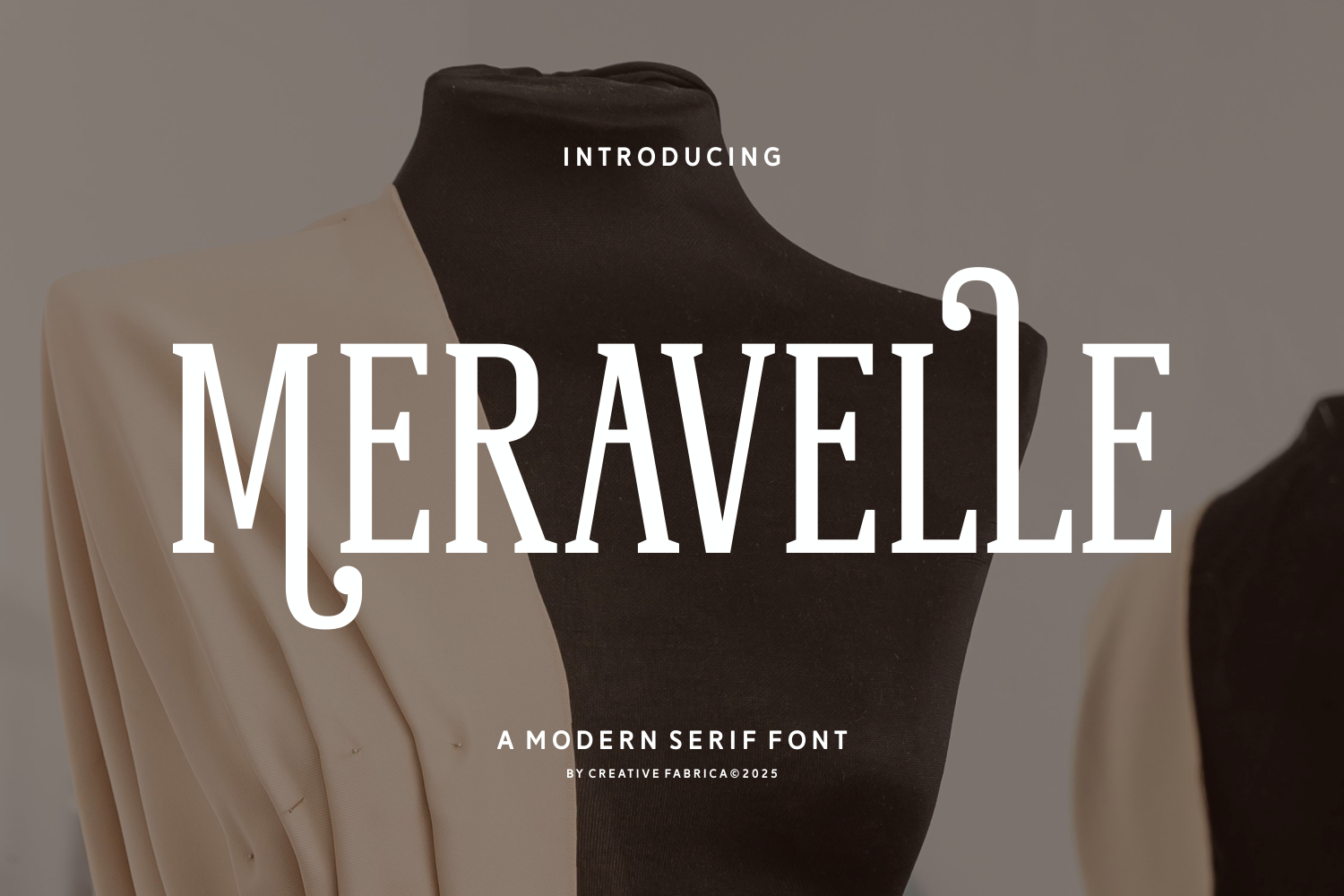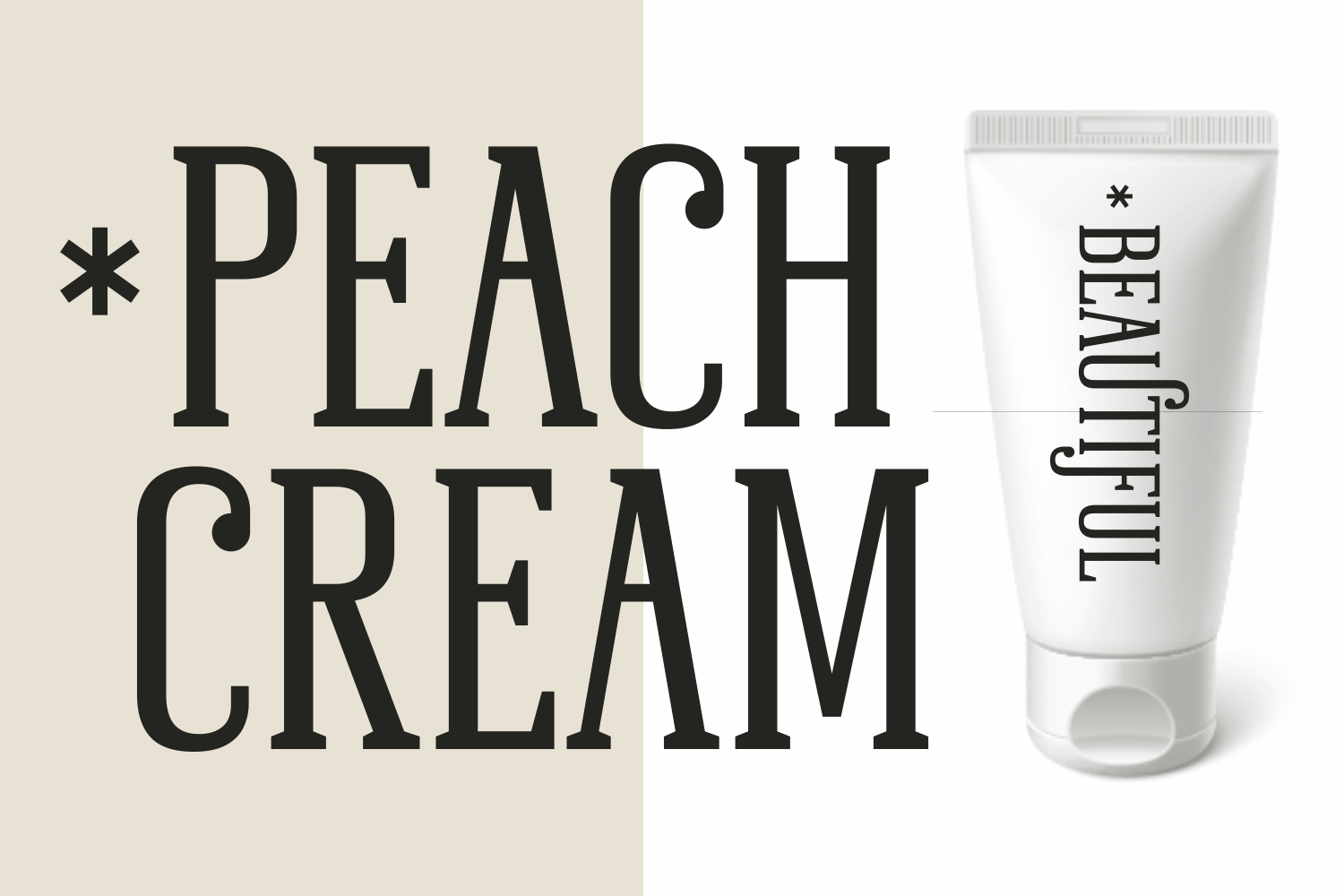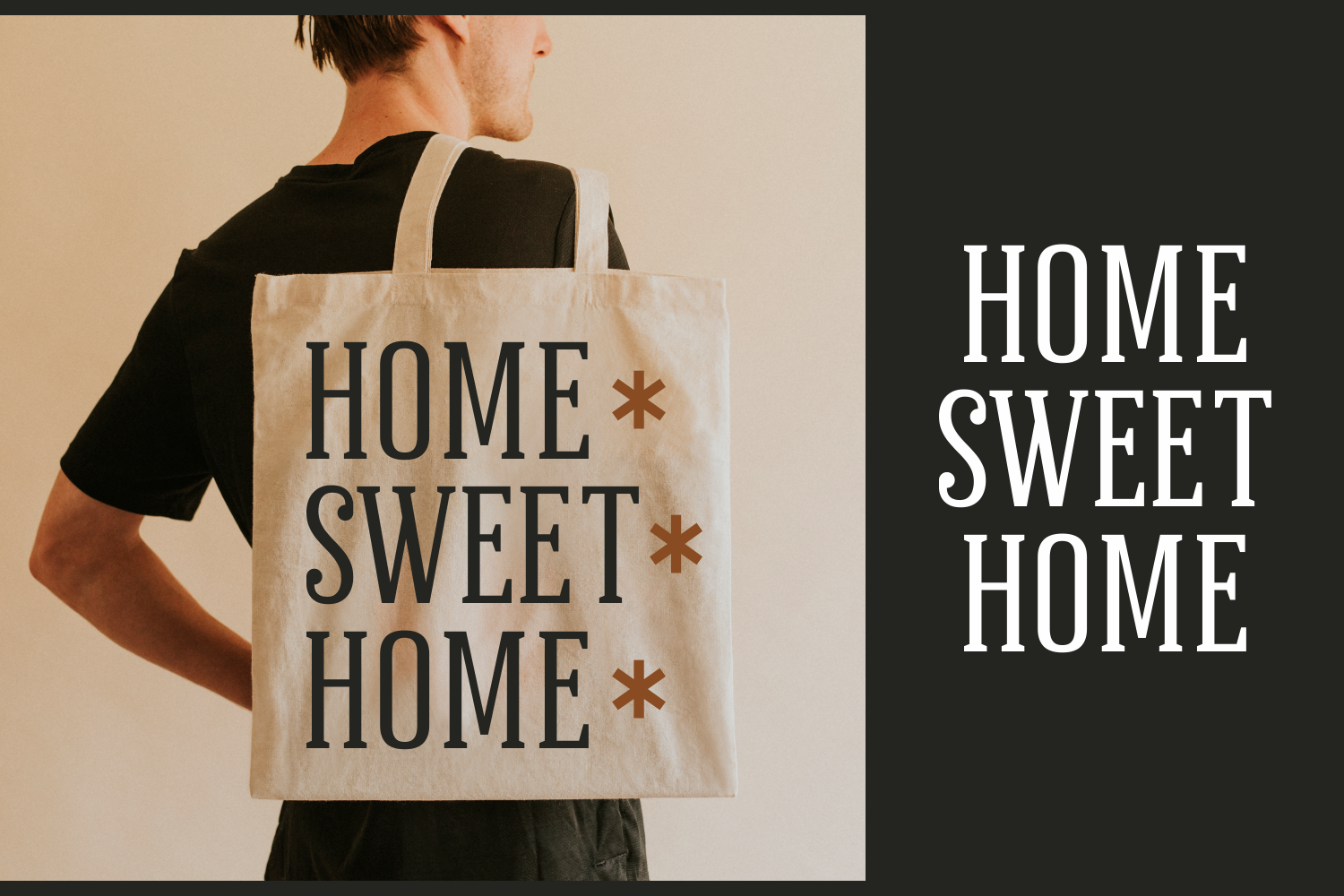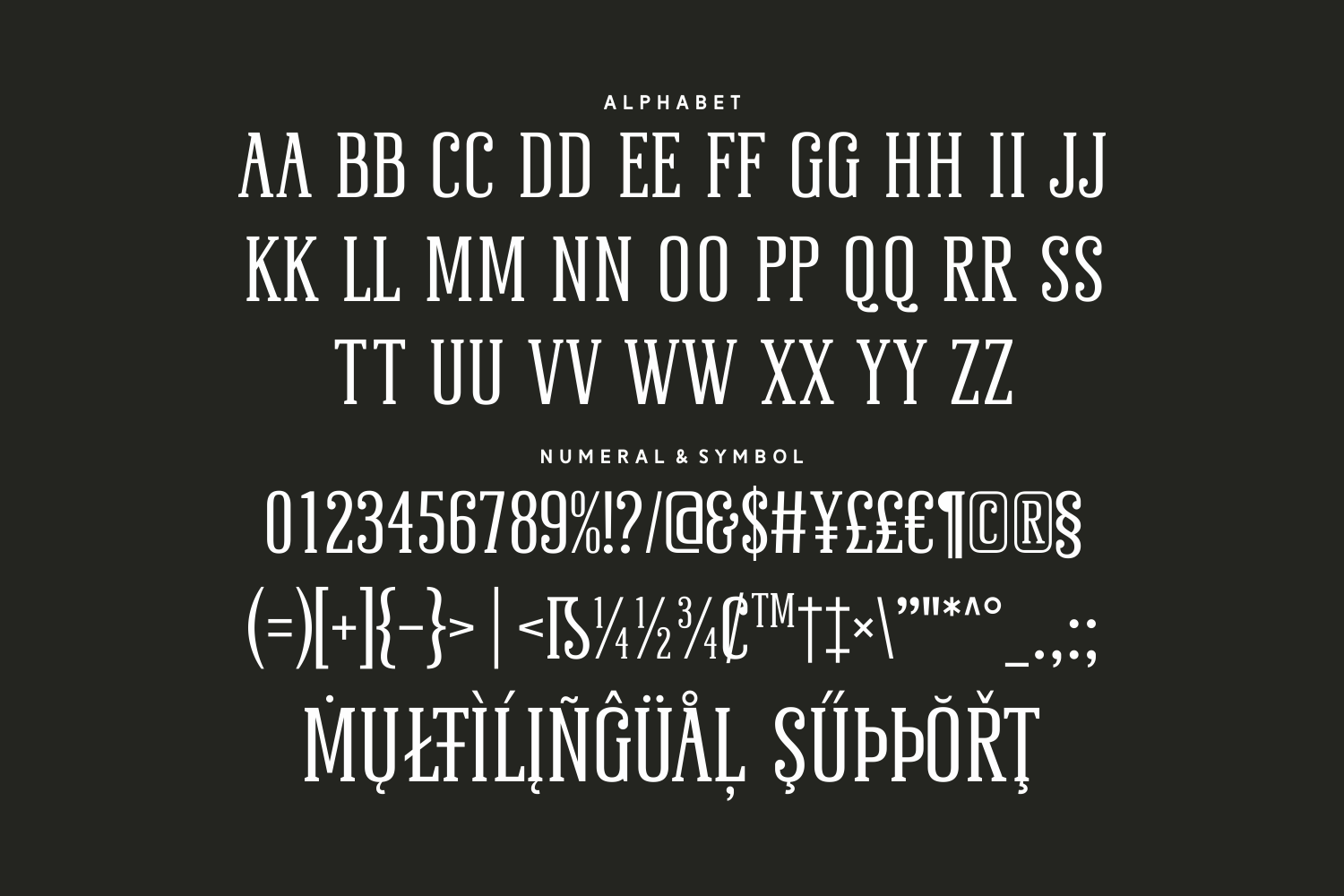
Meravelle is a bold modern serif font with unique alternates and a touch of vintage inspiration. Its sculptural elegance is ideal for fashion editorials, logo design, and premium branding concepts.